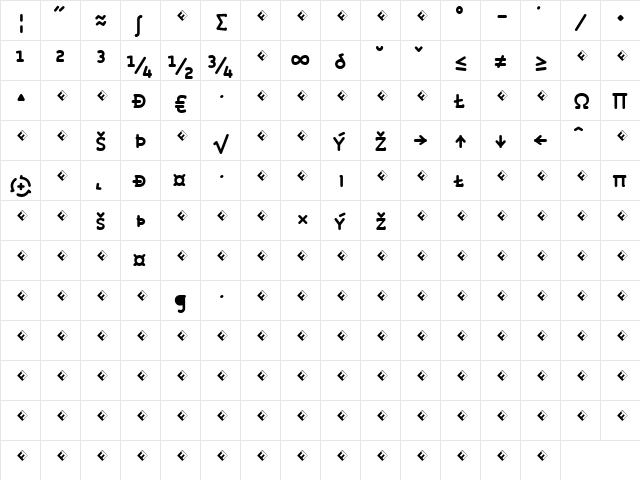
Roice-BoldSCExpert Regular
| Foundry | Alex Scholing, published by FontShop International for the FontFont library |
Design Context for Roice-BoldSCExpert Typeface
Roice-BoldSCExpert is a composed and adaptable typeface that performs quietly and consistently across a wide range of design contexts. The heavy weight commands attention and anchors typographic hierarchies.